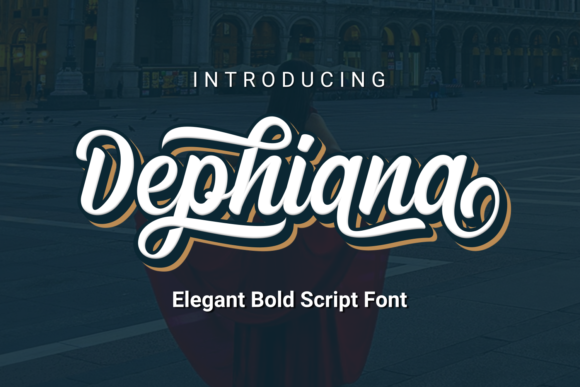
Unveil the Allure of Dephiana: A Handwritten Font Symphony for Timeless Designs
In a realm where visual aesthetics reign supreme, Dephiana emerges as an exquisite masterpiece, a handwritten font that captivates with its elegance and allure. This font is not merely a collection of characters; it's an artistic expression, a symphony of flowing lines and graceful curves that dances across the page, leaving a trail of enchantment in its wake.
Crafted with meticulous precision, Dephiana embodies the essence of timeless design. Its meticulously drawn strokes exude a sense of sophistication and refinement, while its delicate swashes add a touch of romantic whimsy, transforming ordinary words into works of art. Whether you're a seasoned designer or simply seeking to elevate your creative projects, Dephiana is your gateway to a world of visual splendor.
With Dephiana as your design companion, you'll effortlessly infuse your creations with a touch of timeless elegance. Its versatility shines through, adapting seamlessly to a myriad of design styles, from classic and vintage to modern and contemporary. Whether you're crafting a captivating logo, designing an alluring website, or penning heartfelt invitations, Dephiana will elevate your work to new heights.
Step into the realm of Dephiana, and embark on a journey of creative exploration. Let your imagination soar as you witness the transformation of your designs, imbued with an aura of sophistication and charm. Experience the magic of Dephiana, and unlock the true potential of your creative endeavors.